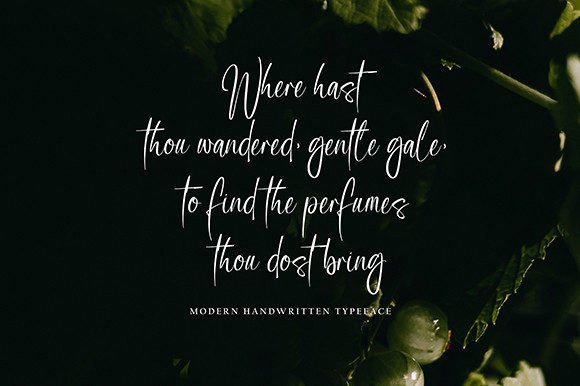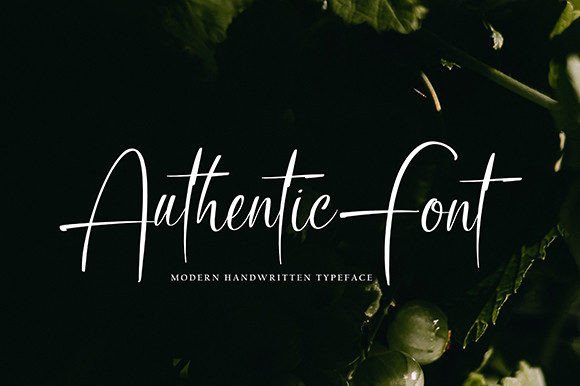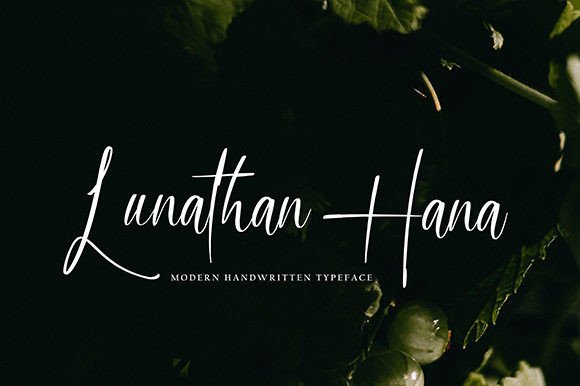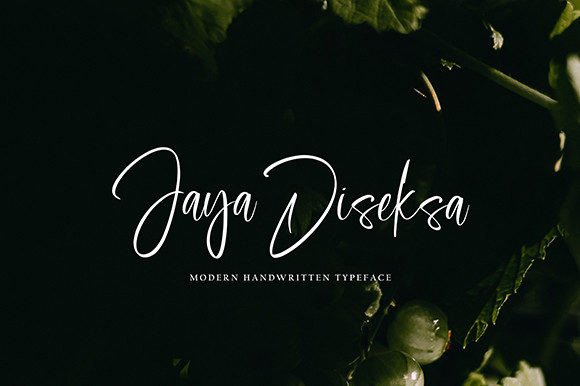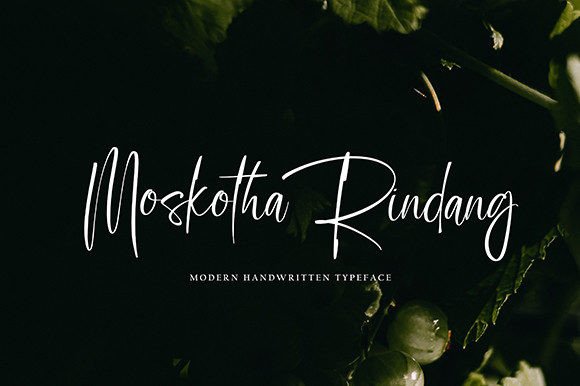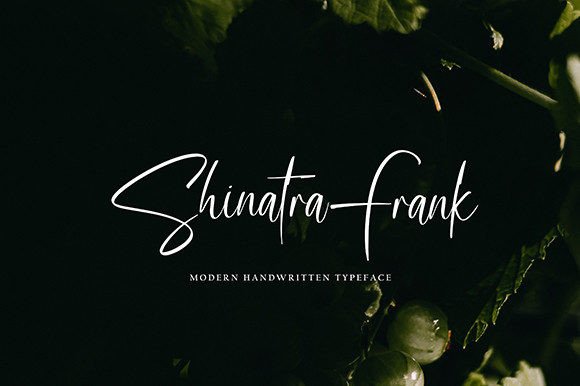
Guster Bopharte Font: Elevate Your Designs with Elegance and Flair
In the world of typography, few fonts manage to capture the essence of elegance and sophistication as effortlessly as Guster Bopharte. This delicate, elegant, and flowing handwritten font has been making waves in the design community, and for good reason. With its beautiful and well-balanced characters, Guster Bopharte is the perfect addition to any creative project, capable of bringing a touch of refinement and style to even the most mundane designs.
The Characteristics of Guster Bopharte
Guster Bopharte is a true masterpiece of font design. Its flowing lines and delicate curves give it a distinctly elegant feel, reminiscent of traditional calligraphy. Each character is carefully crafted to ensure balance and harmony, making it a joy to use in a wide range of design applications. Whether you’re working on a logo, a poster, or a website, Guster Bopharte is sure to add a touch of sophistication and class.
Why Guster Bopharte Stands Out
So, what sets Guster Bopharte apart from other fonts? For starters, its versatility is unmatched. This font can be used in a wide range of designs, from minimalist and modern to vintage and ornate. Its elegant lines and flowing curves make it perfect for designs that require a touch of sophistication, while its delicate nature ensures it won’t overpower more intricate designs.
Using Guster Bopharte in Your Designs
- Logos and Branding: Use Guster Bopharte to create a sophisticated and memorable logo for your business or brand.
- Posters and Flyers: Add a touch of elegance to your posters and flyers with Guster Bopharte’s flowing lines and delicate curves.
- Websites and Blogs: Use Guster Bopharte to add a touch of sophistication to your website or blog’s typography.
- Stationery and Invitations: Create beautiful and elegant stationery and invitations with Guster Bopharte.
Tips for Working with Guster Bopharte
While Guster Bopharte is an incredibly versatile font, there are a few things to keep in mind when working with it:
- Pair it with a sans-serif font: For a classic look, pair Guster Bopharte with a sans-serif font like Arial or Helvetica.
- Experiment with colors: Guster Bopharte looks great in a wide range of colors, from bold and bright to soft and pastel.
- Don’t be afraid to get creative: Guster Bopharte is a versatile font that can be used in a wide range of designs, so don’t be afraid to experiment and try new things.
Guster Bopharte is a truly exceptional font that can elevate any design with its elegance and flair. With its beautiful and well-balanced characters, this font is perfect for designers and crafters looking to add a touch of sophistication to their work. Whether you’re working on a logo, poster, website, or any other design project, Guster Bopharte is sure to make it come alive. So why wait? Download Guster Bopharte today and start creating stunning designs that will leave a lasting impression.
- What type of font is Guster Bopharte? Guster Bopharte is a delicate, elegant, and flowing handwritten font.